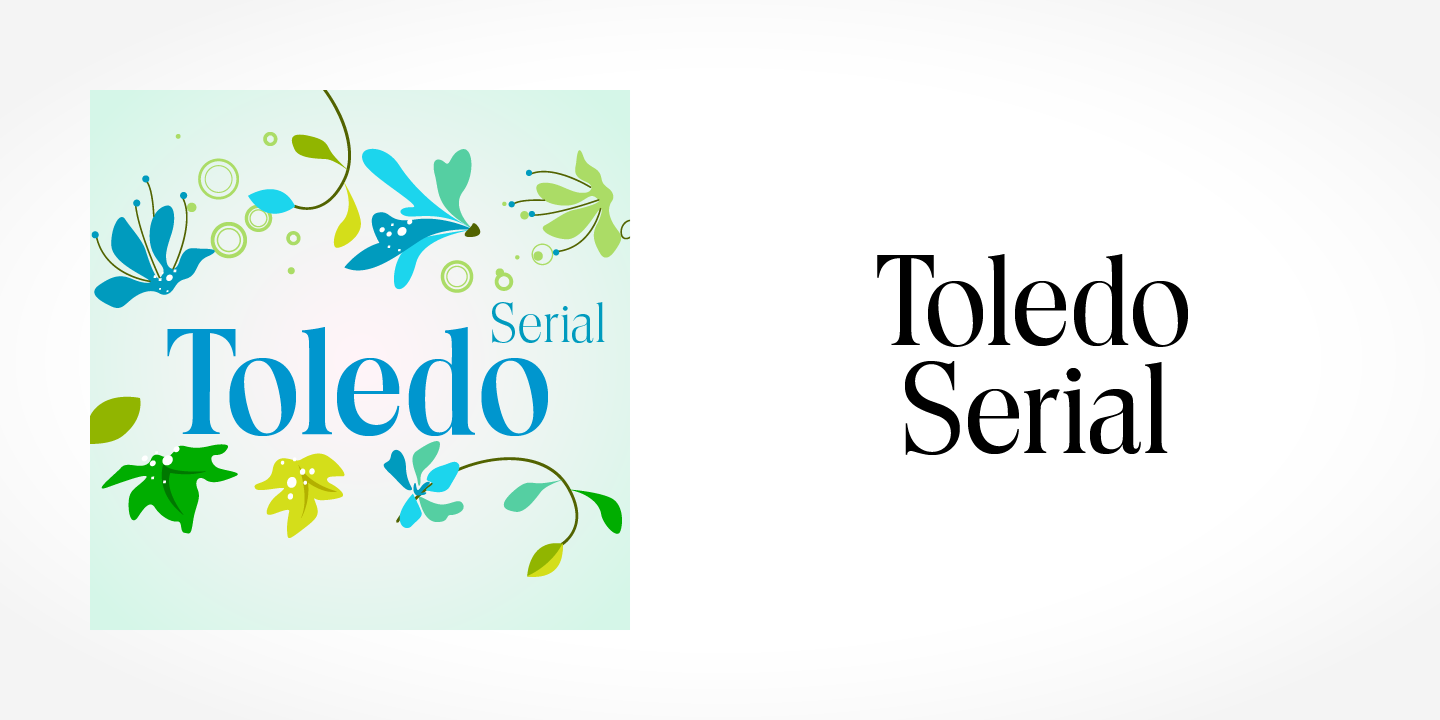
This historic typeface excels in Spanish heritage branding, medieval-themed projects, historical museum displays, traditional craft signage, cultural tourism materials, antique shop logos, heritage restaurant menus, and authentic period communications. Its ancient character makes it perfect for projects celebrating Spanish history and medieval craftsmanship.
Toledo Serial Font creates excitement through its medieval magnificence that captures the timeless grandeur of ancient Spanish cities and historical craftsmanship. The font's fortress-like strokes and architectural letterforms create an atmosphere of historical authenticity that resonates with audiences seeking cultural depth and heritage experiences. Its carefully forged character variations deliver castle-strong readability while maintaining distinctive medieval personality that reflects the enduring legacy of Spanish artisans and the architectural beauty of historic Toledo.
The Toledo Serial Font family features multiple historical variations including regular, light, bold, weathered, and ornamental styles. Each family member maintains the distinctive Spanish heritage aesthetic while offering different levels of ancient sophistication for various cultural applications. This historic collection allows designers to create authentic compositions that celebrate the full spectrum of medieval experiences from intimate craftsman workshops to grand cathedral ceremonies.